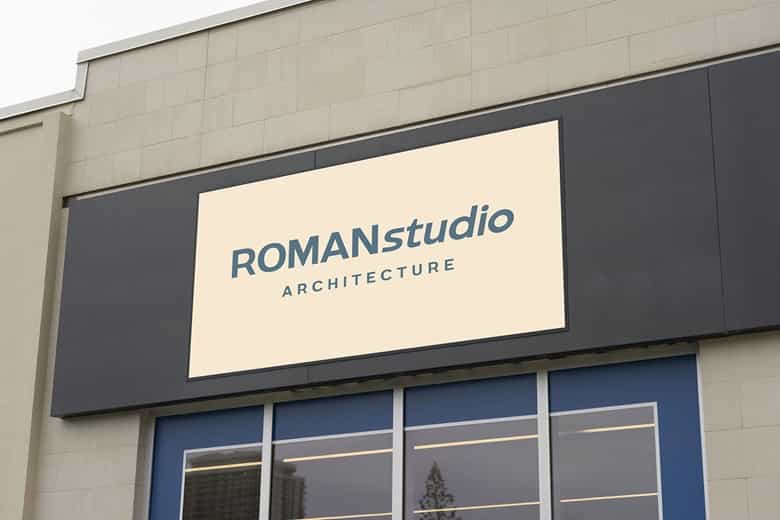
Geikya is an elegant sans serif typeface manufactured by Typeformers. It is even clearer for reading also suitable for any project that one may have. Geikya is ideal for creating posters, website, or anything else, it does add some sophisticated effect to your texts.